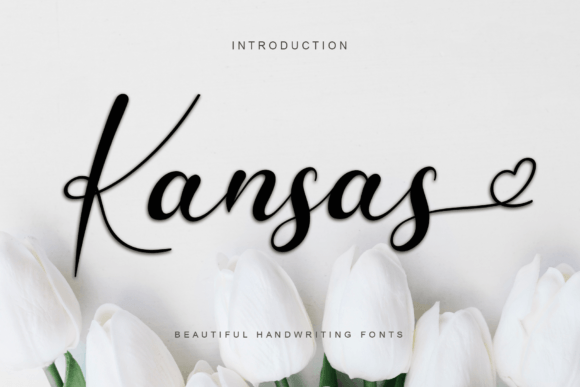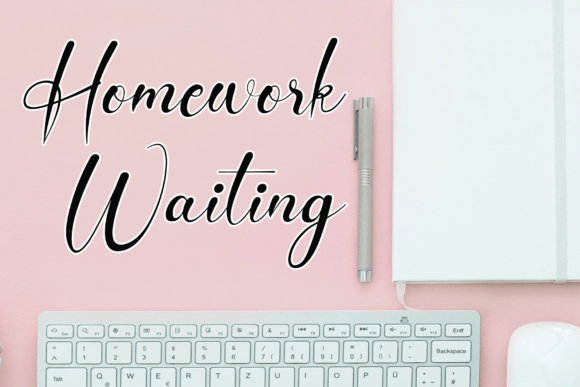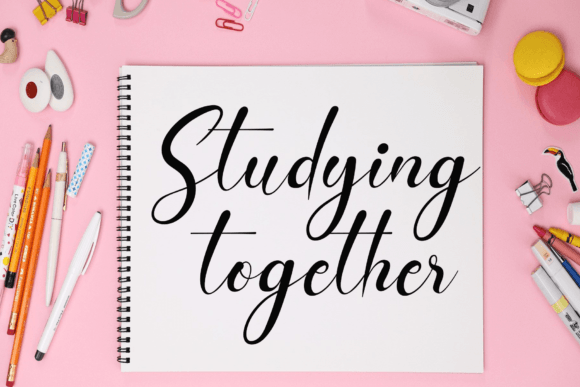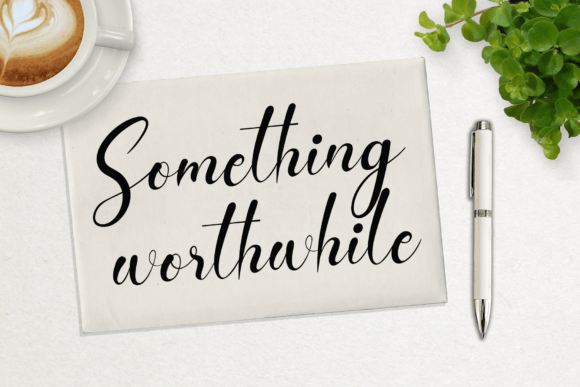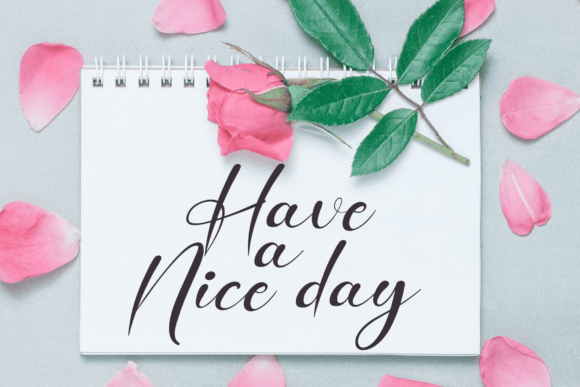
Kansas Font
About Kansas Font
“Kansas” is a magical handwritten font meticulously crafted to infuse elegance into your designs. Its enchanting and sophisticated style makes it a perfect choice for a wide range of creative projects. Whether you’re searching for fonts to enhance your Instagram posts or calligraphy scripts for DIY endeavors, “Kansas” has the ability to transform any creative idea into a genuine work of art.
The font’s magical aura and elegant strokes bring a sense of enchantment to your designs. Its flowing letterforms and graceful curves create a visually appealing and harmonious composition, making your text look refined and artistic. “Kansas” captures the essence of handwritten charm, adding a touch of magic to your projects.
Whether you’re working on social media graphics, invitations, branding materials, quotes, posters, or any other creative endeavor, “Kansas” elevates the overall aesthetic of your designs. Its versatility allows you to use it for various purposes, adding a touch of sophistication to each application. The font’s magical quality shines through, making your creations captivating and visually striking.
One of the standout features of “Kansas” is its ability to evoke a sense of wonder and elegance. It turns ordinary text into extraordinary artwork, captivating viewers and leaving a lasting impression. The font’s magical handwritten style is perfect for projects that require a touch of fantasy and creativity.
By incorporating “Kansas” into your designs, you’re not just using a font; you’re creating an enchanting experience for your audience. Whether you’re a designer, a content creator, or someone passionate about DIY projects, this font allows you to add a touch of magic to your creative endeavors. Let “Kansas” be the spell that transforms your ideas into captivating masterpieces, capturing the hearts and imaginations of those who encounter your work.